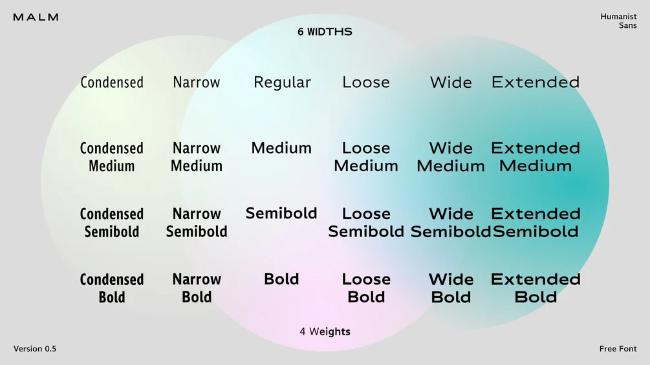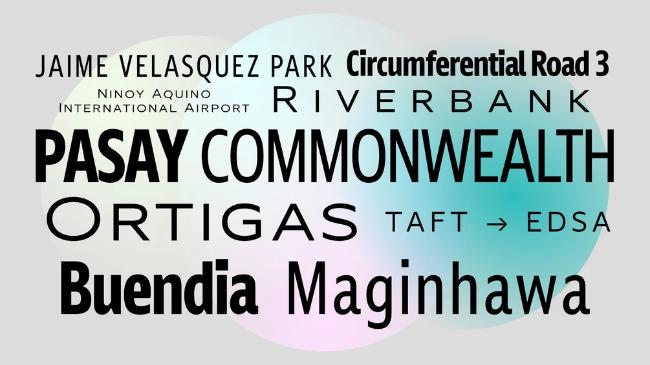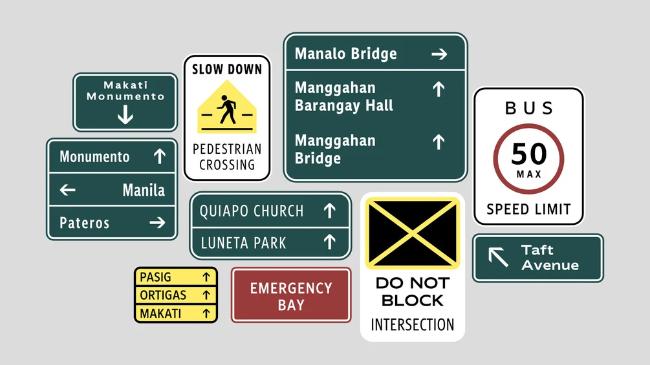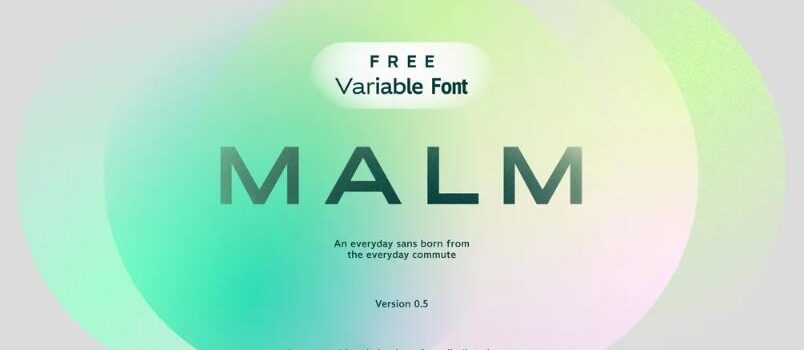
Malm is a humanist sans-serif typeface that brings together the diverse typographic styles found across Metro Manila into a single, cohesive family. It draws inspiration from functional, highly legible type, giving it a practical, utilitarian feel—especially in its narrower widths. At the same time, it embodies the warm, fun-loving spirit of Filipino culture through softer curves and rounder forms, making Malm feel approachable and inviting.